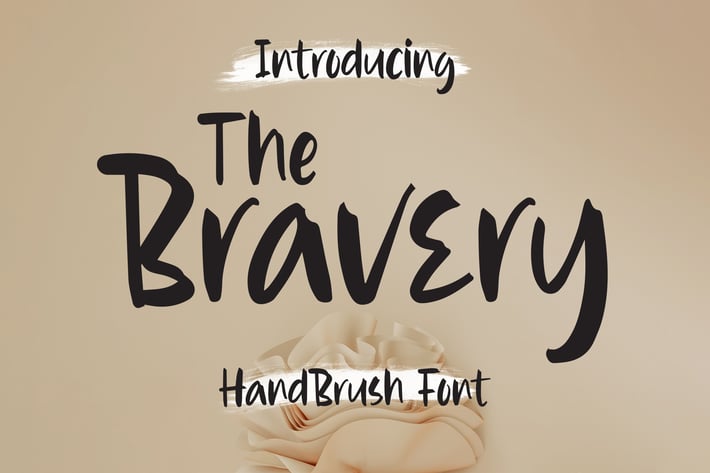
Bravery - Handbrush Font
Bravery - Handbrush Font contains a lowercase, uppercase, symbol, and also supports multi-language. There’s a lot of ligature in this font. Bravery - Handbrush Font also comes with ligatures, stylistic alternates and many more.
this font suitable for fashion, branding, catalog and other design that you want.